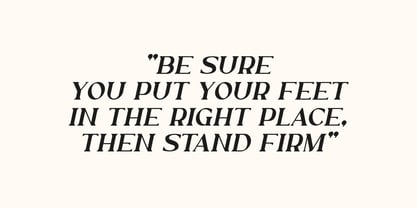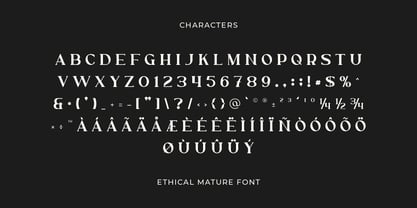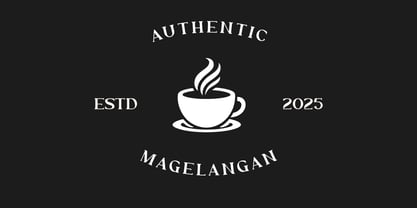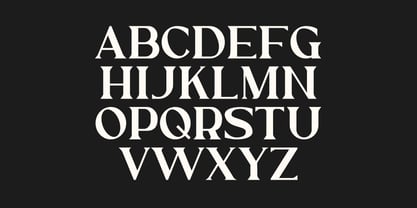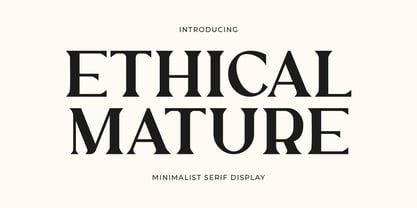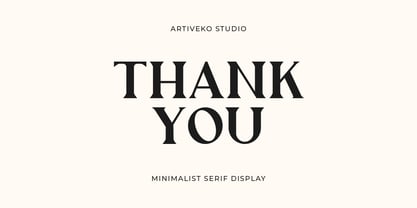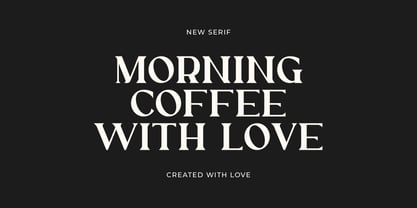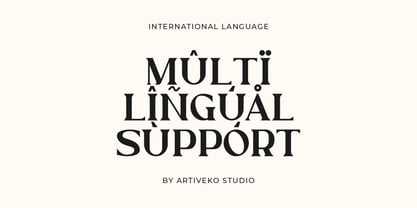
Ethical Mature
by Artiveko
The Ethical Mature Font Family was designed by Iwan Alwan and published by Artiveko. Ethical Mature contains 2 styles.
Ethical Mature is a premium luxury serif typeface crafted for those who value elegance, sophistication, and timeless design. With its refined curves and high-contrast strokes, this font evokes a sense of confidence and authority while remaining effortlessly graceful. Whether you're designing for luxury fashion, editorial layouts, boutique branding, or upscale packaging, Ethical Mature offers a distinguished presence that elevates every project.
Moreover, Ethical Mature combines modern precision with classic charm, making it highly versatile across both print and digital media. Each letterform is thoughtfully designed to ensure excellent legibility, even at small sizes, while still offering strong visual impact when used in headlines or logos.
About Artiveko
Artiveko is a font design team based in Indonesia, comprised of several talented font designers who commenced their careers in the font design industry in 2020. With a dedicated focus on crafting fonts, the team members bring their collective expertise and passion to every project they undertake. Situated in Indonesia, Artiveko draws inspiration from the vibrant cultural landscape of the region, infusing their creations with unique flavors and aesthetics.The team's font collection encompasses a diverse range of styles, including serif, sans serif, handwritten, and script typefaces. Each typeface is meticulously crafted to meet the demands of modern design while offering versatility and functionality across various applications. Whether it's the classic elegance of serif fonts, the contemporary appeal of sans serif designs, the personal touch of handwritten scripts, or the expressive flourishes of script fonts, Artiveko ensures that every font reflects their dedication to quality and innovation.Artiveko's fonts have garnered recognition and acclaim, with their works being featured on prominent social media platforms like Creative Market. Through these platforms, the team has been able to connect with a global audience of designers and typographers, further amplifying their reach and influence in the industry. Their fonts are celebrated for their impeccable craftsmanship, attention to detail, and ability to elevate design projects with style and sophistication.As Artiveko continues to evolve and expand its font collection, the team remains committed to pushing the boundaries of typography and setting new standards of excellence. With a relentless focus on creativity, innovation, and collaboration, Artiveko strives to inspire and empower designers around the world with their distinctive and versatile font designs.